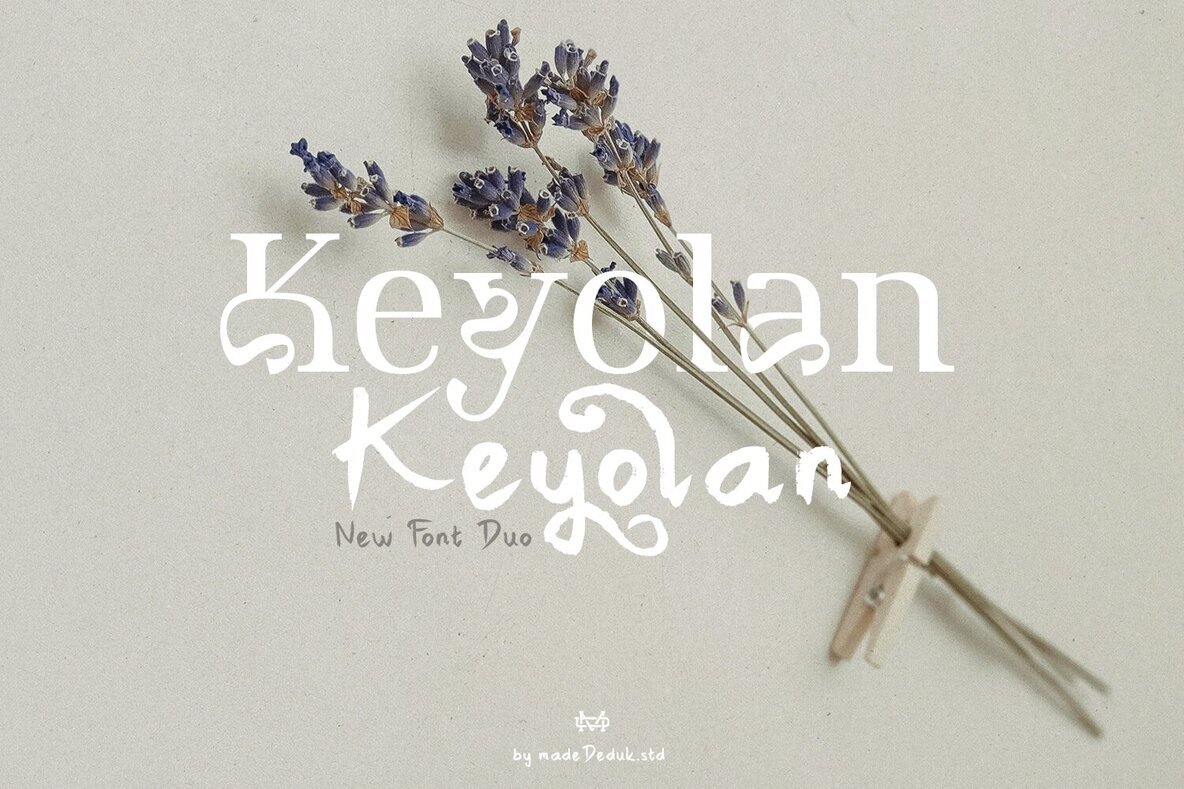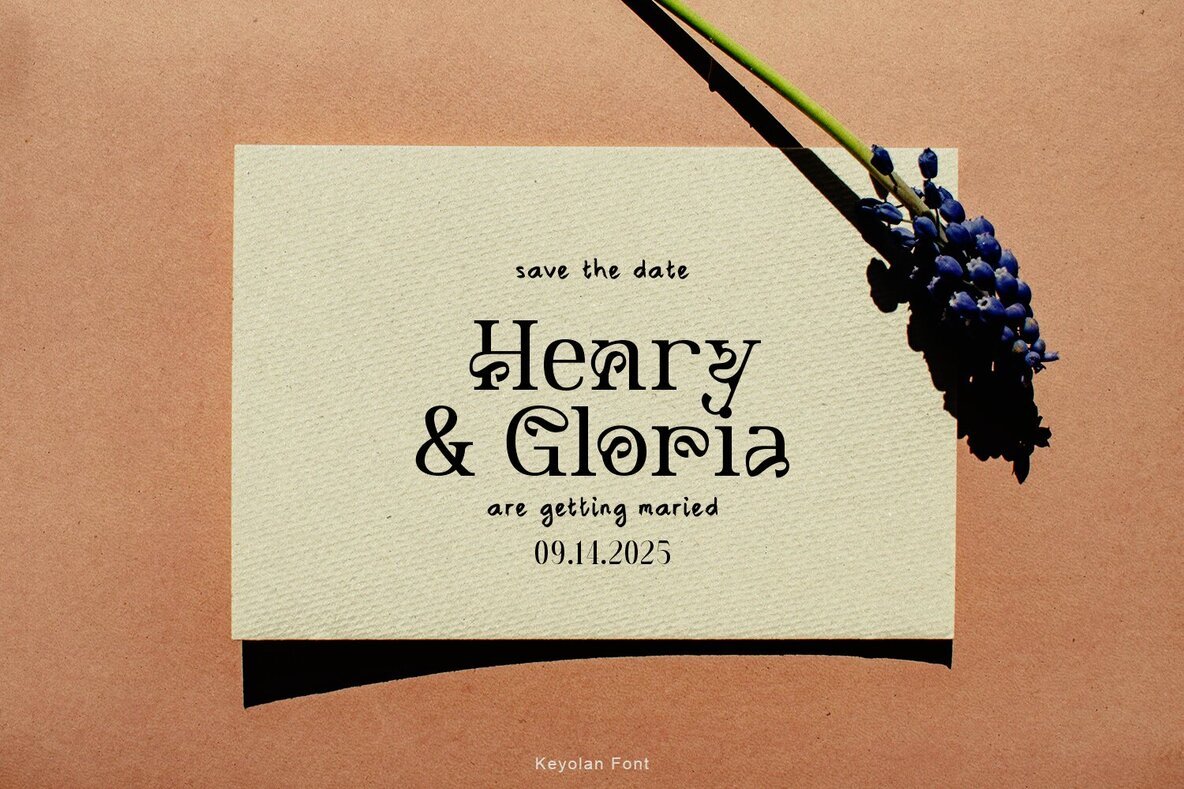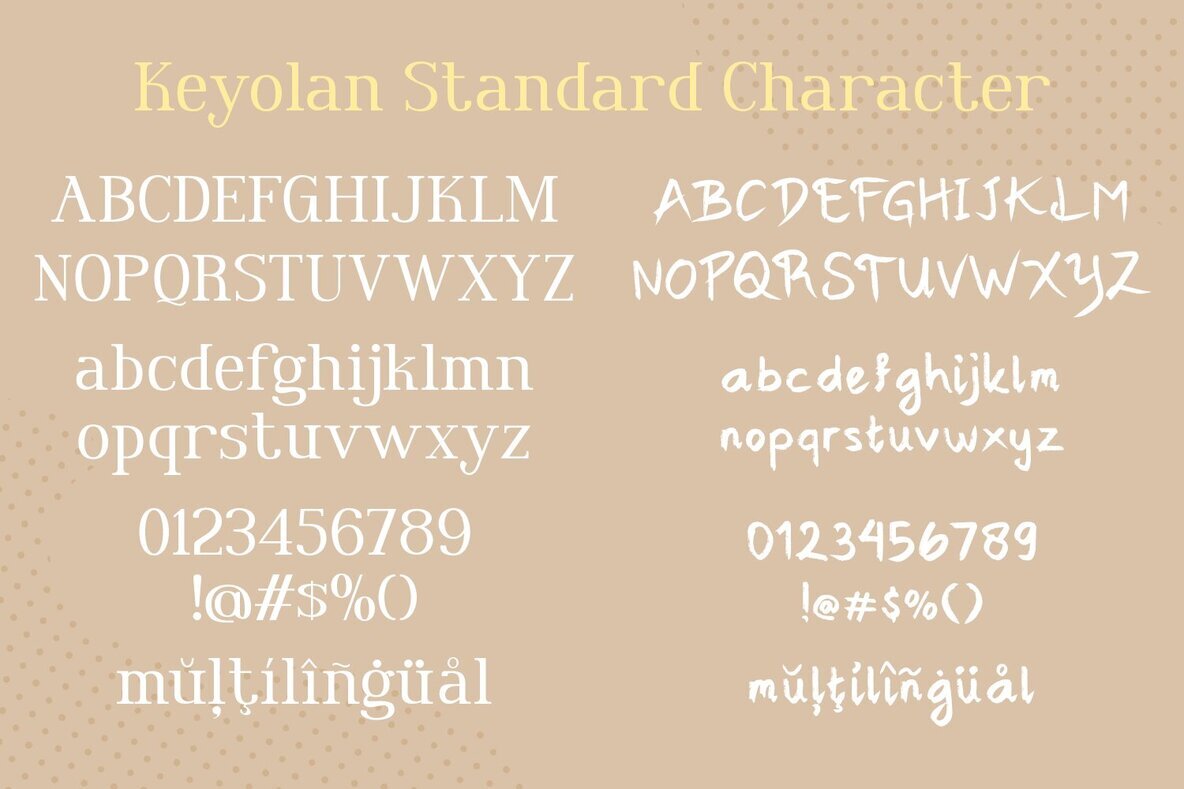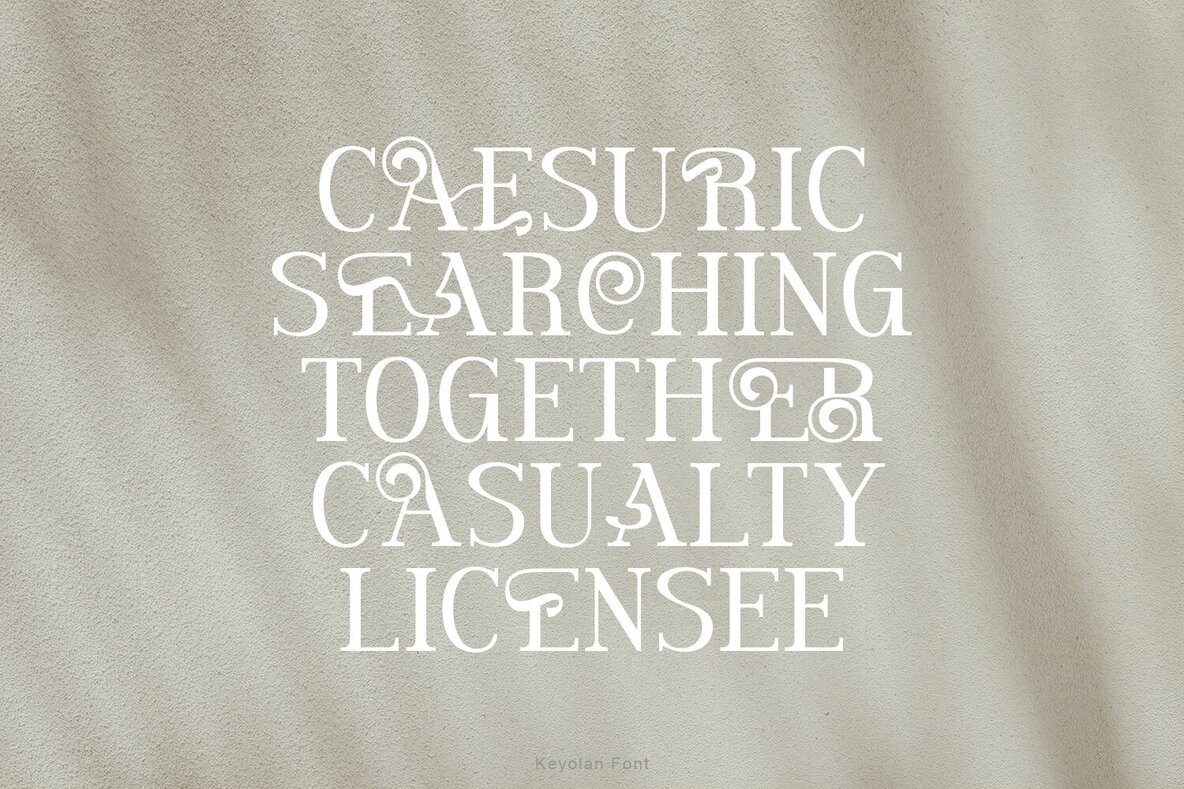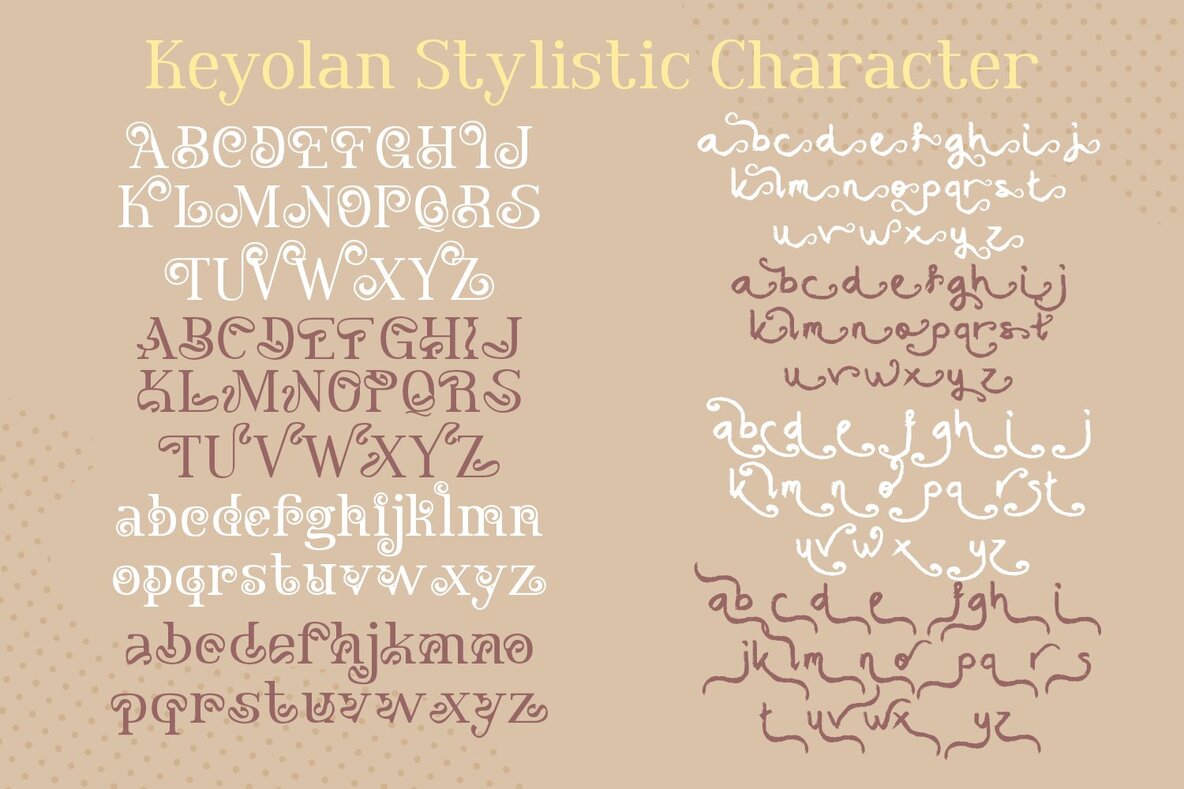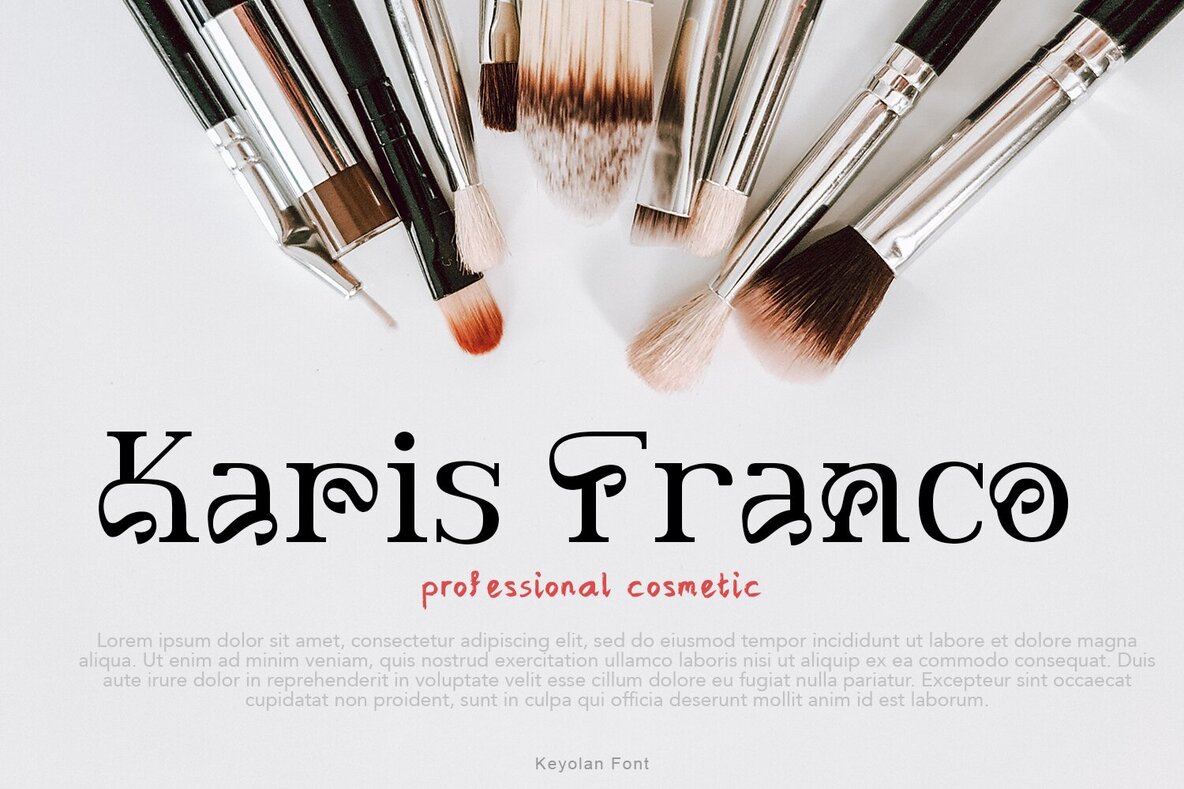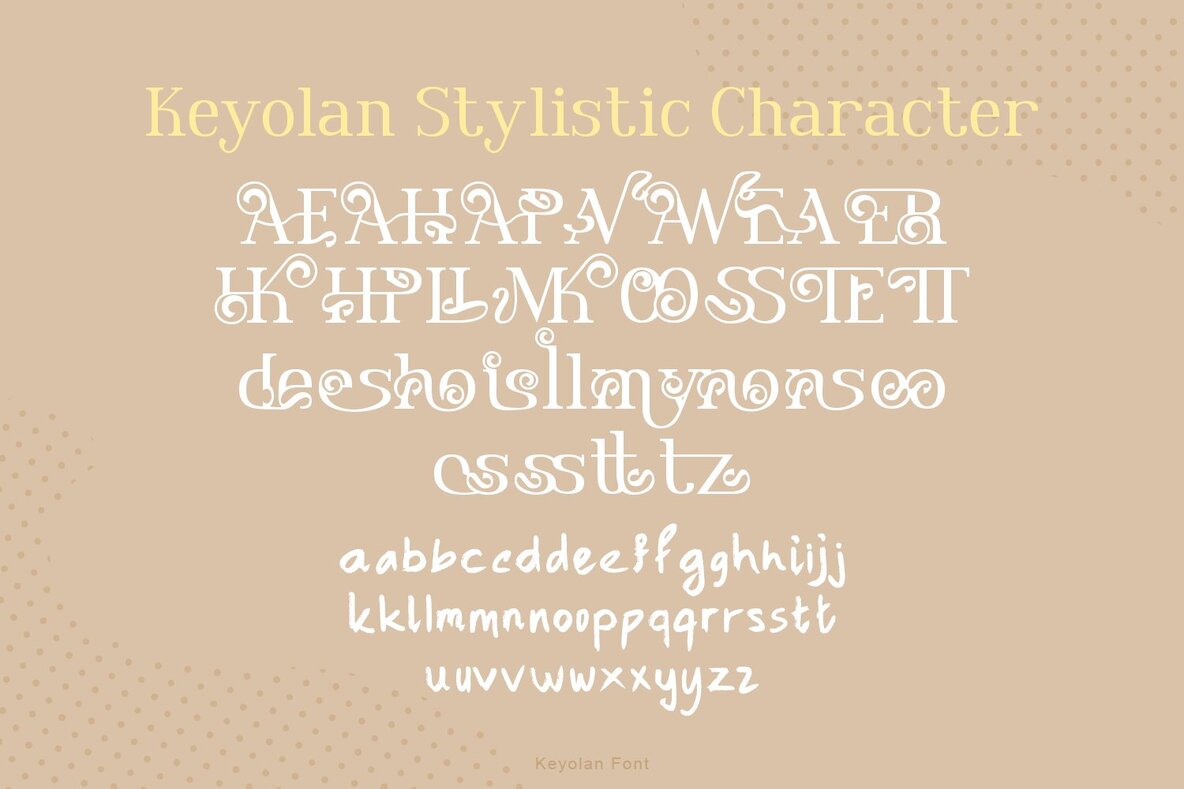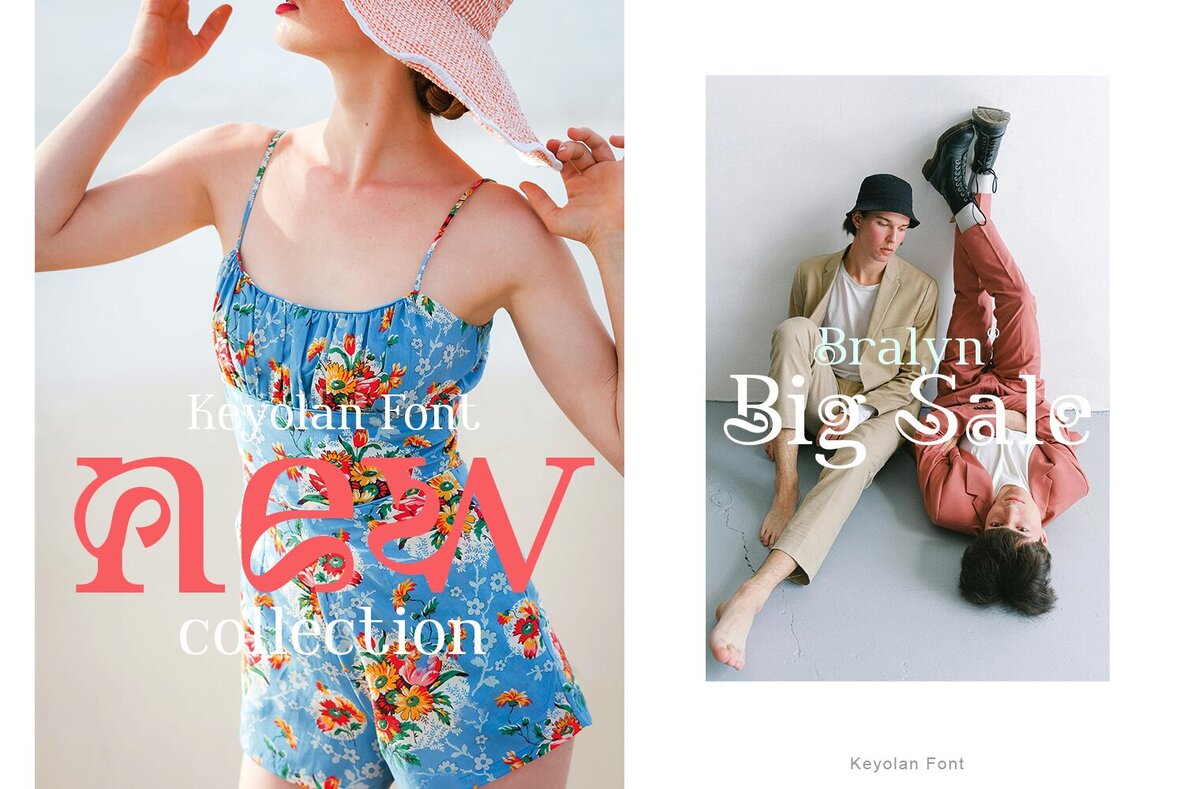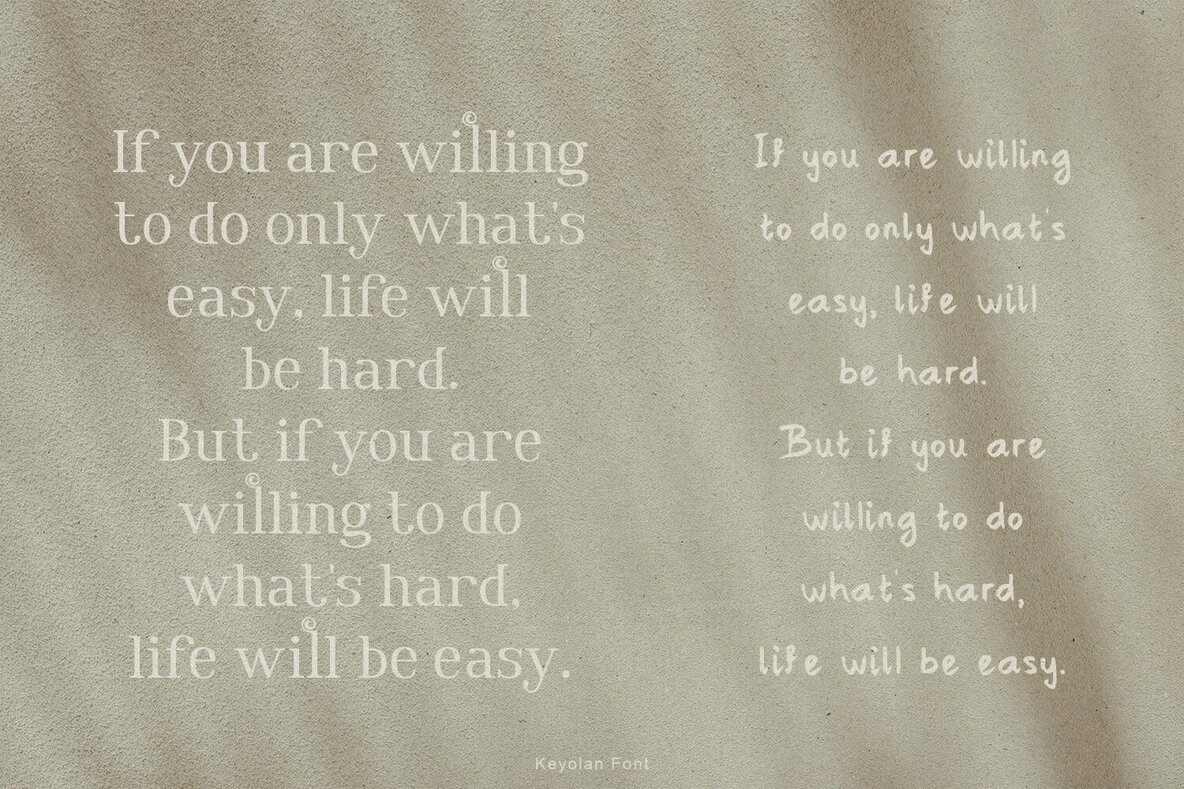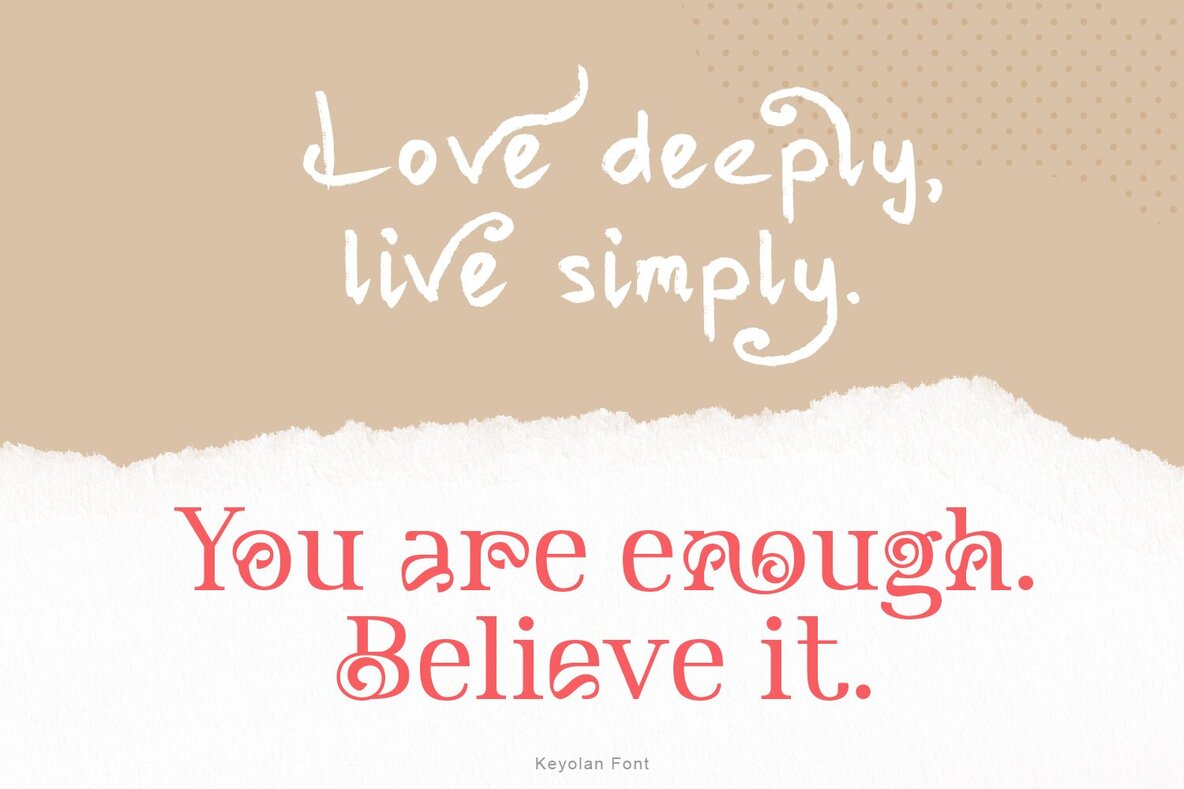
Keyolan Font
Keyolan Handwritten
Keyolan Serif
Introduce elegance and charm to your design projects with the Keyolan font duo. This unique serif font is beautifully paired with brush handwriting, offering a modern minimalist aesthetic with a touch of opulence. Versatile and attractive, Keyolan is perfect for crafting standout modern logos, enhancing websites, and adding flair to social media quotes. Its sophisticated yet simple design also makes it an ideal choice for wedding stationery and various other creative endeavors. Embrace the luxury of Keyolan to elevate your visual creations effortlessly.Keyolan Font Duo